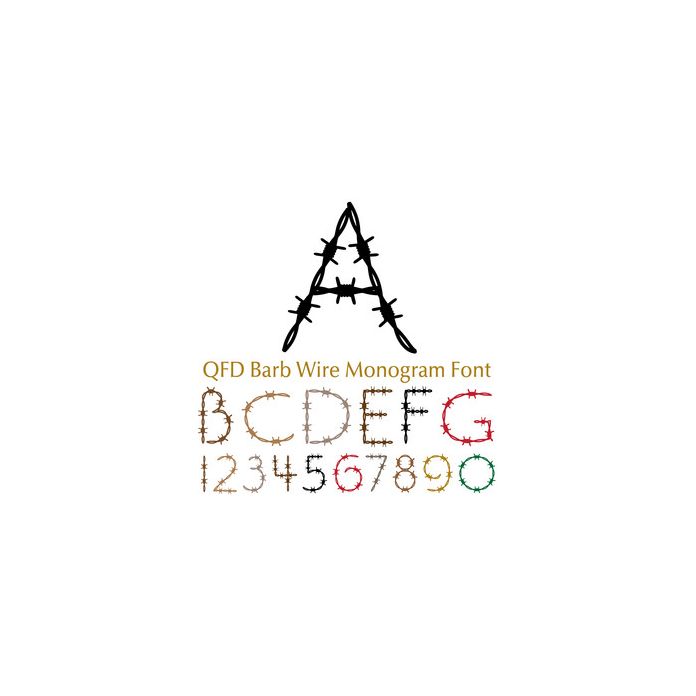
For all your farm themed projects! Combine this fun font with the other QFD Monogram fonts! See our detailed monograms tutorial by clicking the Instructions button.